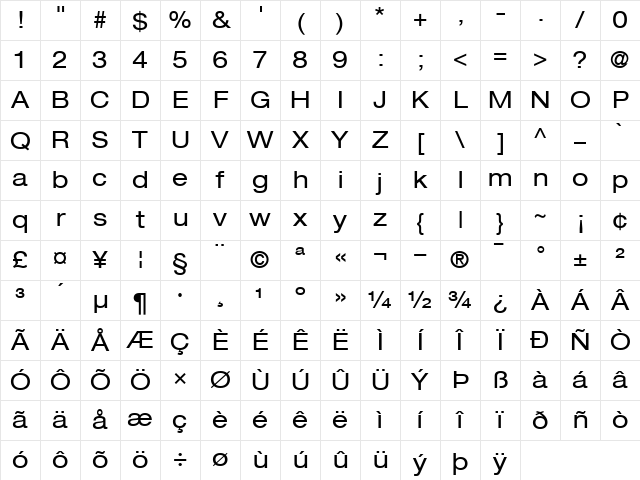
Complete Helvetica53-Extended Roman glyph index. Displaying only characters natively supported by Helvetica53-Extended Roman font.
Helvetica53-Extended is a composed and adaptable typeface that performs quietly and consistently across a wide range of design contexts.